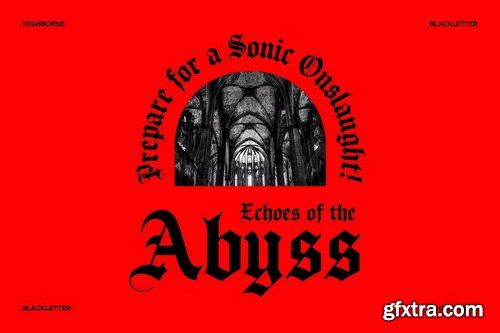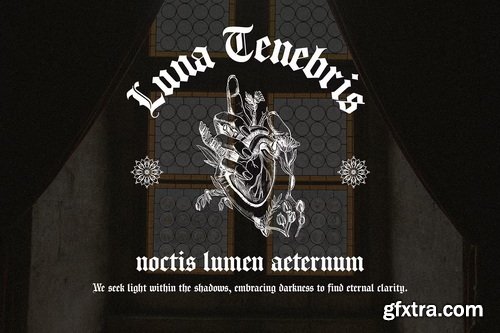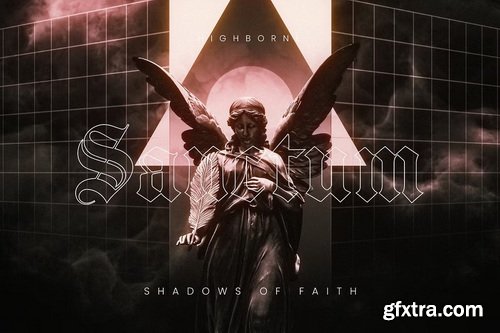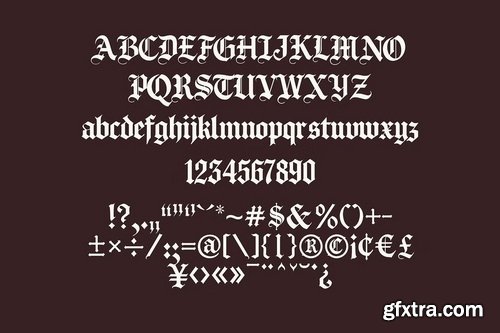
- Perfect — thanks for sharing all the previews! Step into the world of legends, castles, and timeless oaths with Highborne, a medieval-inspired blackletter typeface crafted to bring bold character and historical drama to your designs.
- With sharp ornamental strokes, strong contrast, and authentic gothic details, Highborne channels the essence of medieval manuscripts and heraldic banners while staying versatile for modern creative projects.
- Whether you’re designing music covers, dark fantasy posters, gothic branding, book titles, apparel graphics, or cinematic quotes, Highborne adds an aura of mystery and power that instantly captures attention.